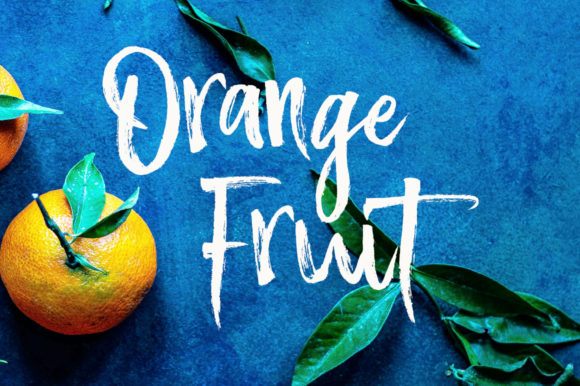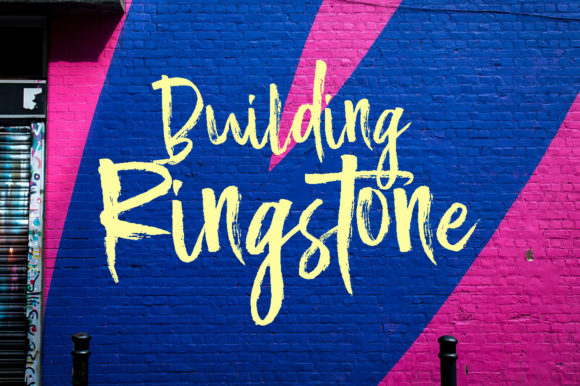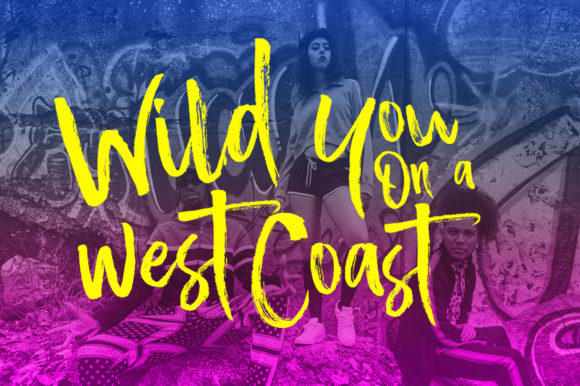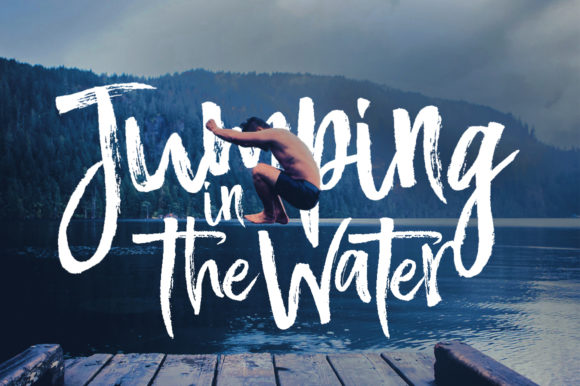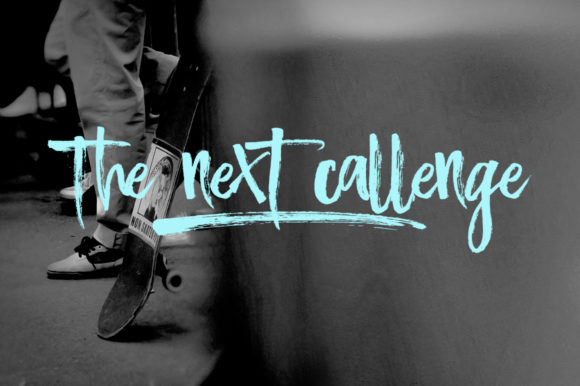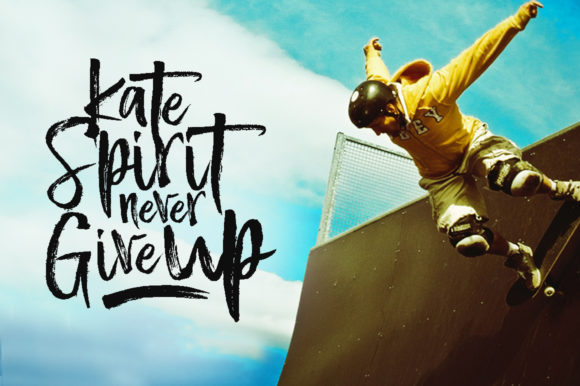
Introducing Black Panther Font: A Textured Brush Font with a Contemporary Twist
Are you a designer or crafter looking for a unique and stylish font to elevate your creative projects? Look no further than Black Panther Font, a textured brush font that brings a contemporary approach to design with a handmade, natural, and irregular baseline. In this article, we’ll dive into the features and benefits of Black Panther Font, and explore how it can be used to add a touch of personality to your designs.
What is Black Panther Font?
Black Panther Font is a carefully crafted textured brush font that boasts a distinctive, hand-painted look. Its irregular baseline and natural texture give it a unique, organic feel that’s perfect for designers and crafters who want to add a personal touch to their work. With its contemporary approach to design, Black Panther Font is ideal for a wide range of creative projects, from title design and branding to packaging and stationery.
Key Features of Black Panther Font
- Textured Brush Font: Black Panther Font features a textured brush design that gives it a natural, handmade look.
- Irregular Baseline: The font’s irregular baseline adds to its organic feel, making it perfect for designs that require a personal touch.
- Contemporary Approach: Black Panther Font’s contemporary design approach ensures that it looks modern and fresh, while still maintaining a unique, hand-painted feel.
- Versatile: This font is suitable for use in a wide range of creative projects, including title design, branding, packaging, and more.
Use Cases for Black Panther Font
Black Panther Font is an incredibly versatile font that can be used in a variety of creative projects. Here are some use cases to get you started:
- Apparel Design: Use Black Panther Font to create eye-catching title designs for t-shirts, hoodies, and other apparel.
- Invitations and Stationery: Add a personal touch to your invitations, greeting cards, and stationery with Black Panther Font.
- Book Titles: Use Black Panther Font to create stunning book titles that stand out from the crowd.
- Branding and Logos: Black Panther Font is perfect for creating unique and memorable brand identities and logos.
- Packaging Design: Elevate your packaging design with Black Panther Font’s textured brush look.
- Posters and Quotes: Use Black Panther Font to create inspiring posters and quotes that showcase your message.
Why Choose Black Panther Font?
With so many fonts available, why choose Black Panther Font? Here are just a few reasons why designers and crafters love this font:
- Unique Look: Black Panther Font’s textured brush design and irregular baseline give it a unique look that’s hard to find in other fonts.
- High-Quality Design: Black Panther Font is designed with high-quality in mind, ensuring that it looks great in any design.
- Versatile: This font can be used in a wide range of creative projects, making it a great addition to any designer’s toolkit.
Black Panther Font is a textured brush font that offers a contemporary approach to design with a handmade, natural, and irregular baseline. With its unique look and versatility, it’s perfect for designers and crafters who want to add a personal touch to their creative projects. Whether you’re designing apparel, invitations, book titles, or branding, Black Panther Font is a great choice. So why wait? Download Black Panther Font today and start creating stunning designs that stand out from the crowd!